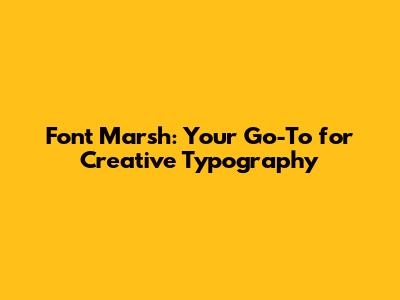
Hey guys, let's dive into the awesome world of Font Marsh! If you're anything like me, you know that the right font can totally make or break a design. It's not just about picking something that looks cool; it's about conveying the right emotion, the right message, and the right vibe. And that's where Font Marsh really shines. This platform is like a treasure trove for anyone looking to elevate their visual projects, whether you're a seasoned graphic designer, a blogger trying to make your site pop, or just someone who loves tinkering with text. We're talking about a huge collection of fonts that are not only diverse but also, crucially, high-quality. Forget those jagged, poorly made fonts that look terrible when scaled up. Font Marsh brings you clean, crisp, and professional typefaces that will make your work look polished and, dare I say, expert. So, stick around as we explore what makes Font Marsh such a fantastic resource and how you can leverage its extensive library to bring your creative visions to life. Get ready to discover some truly stunning fonts that will have your audience hooked from the first glance. It's all about making a statement, and with the right typography, you absolutely can.
Why Font Marsh is a Designer's Best Friend
So, why exactly should Font Marsh be on your radar, especially if you're knee-deep in the design world? Well, for starters, the sheer variety is mind-blowing. They've got everything from elegant serifs that scream sophistication to bold, playful sans-serifs perfect for grabbing attention. Need something grungy and distressed for an edgy poster? Check. How about a delicate script for a wedding invitation? Yep, they've got that too. This font library isn't just large; it's incredibly curated. What that means for you, my friends, is that you're not wading through a sea of mediocre fonts. Each one has been selected for its quality, usability, and aesthetic appeal. Think about the time you save not having to sift through hundreds of questionable options elsewhere. Font Marsh streamlines the process, offering you a reliable source of top-tier typefaces. Plus, they often have unique and creative fonts that you won't find just anywhere, giving your projects that distinctive edge. This is crucial in a crowded market where standing out is key. The best fonts often come with licensing information clearly laid out, and Font Marsh is good about that, helping you avoid any legal headaches down the line. Whether you're working on branding, web design, print materials, or social media graphics, having access to such a diverse and high-quality font collection is invaluable. It empowers you to experiment, to push creative boundaries, and to find that perfect typographic solution that resonates with your target audience. It’s about having the tools to execute your vision flawlessly, and Font Marsh provides just that. Seriously, guys, it’s a game-changer for your design workflow. The ease of browsing, the clear categorization, and the preview features all contribute to a smooth and enjoyable experience. It truly is a one-stop shop for all your typographic needs, making your design process more efficient and, dare I say, fun!
Exploring the Depths: What Kinds of Fonts Can You Find?
Let's get down to the nitty-gritty, shall we? What exactly can you expect to find when you start exploring the vast expanse of Font Marsh? Prepare to be amazed, because the diversity is truly something else. For all you lovers of classic elegance, they boast an impressive selection of serif fonts. These are the ones with those little decorative strokes, perfect for making your text feel traditional, authoritative, and incredibly readable in long-form content like books or articles. Think timeless beauty and a touch of old-world charm. On the flip side, if you're aiming for a modern, clean, and minimalist aesthetic, their sans-serif fonts are absolutely on point. These fonts lack the serifs, giving them a sleek and contemporary feel that works wonders for web design, app interfaces, and corporate branding. They convey clarity, efficiency, and a forward-thinking attitude. But Font Marsh doesn't stop there! For those projects that need a personal touch, a bit of flair, or a handwritten feel, their script fonts are a dream. From elegant, flowing calligraphy to more casual, brush-like styles, these can add a unique and intimate character to invitations, greeting cards, or even personal branding. Just imagine the impact a beautifully rendered script font can have! And let's not forget the more niche categories that really set Font Marsh apart. They have an extensive range of display fonts – these are the showstoppers, designed to grab attention in headlines, posters, and logos. You'll find everything from retro and vintage-inspired fonts to futuristic and abstract designs. Need something with a bit of a rough edge? Their distressed or grunge fonts are perfect for creating that edgy, urban, or post-apocalyptic vibe. Or perhaps you're after something quirky and fun for a children's book or a playful brand? They've got handwritten or decorative fonts that ooze personality. The font selection also spans various moods and themes, meaning you can find fonts specifically suited for holidays, specific industries, or even particular artistic movements. It’s like having a mood board for typography right at your fingertips. This incredible breadth ensures that no matter the project or the vision, you're highly likely to discover the perfect typographic match. Font Marsh truly understands that different projects call for different voices, and they’ve assembled a library that speaks every typographic language fluently. So go ahead, dive in, and let your creativity run wild – the perfect font is waiting for you!
Tips for Using Fonts Effectively from Font Marsh
Alright, you've browsed Font Marsh, and you're overwhelmed with all the amazing choices. Now what? How do you actually use these beautiful fonts effectively? Don't worry, guys, I've got some pointers to help you make the most of your font finds. First off, less is often more. While it's tempting to use every cool font you discover, try to stick to a limited palette for any given project. Generally, using two or three fonts – perhaps a headline font, a body text font, and maybe an accent font – is more than enough. This creates a cohesive and professional look. Font Marsh makes it easy to find complementary fonts, so explore their suggested pairings or choose fonts that belong to the same font family for guaranteed harmony. Another golden rule is readability. No matter how stylish a font is, if people can't read it, it's failed its primary purpose. Pay close attention to the legibility of your body text. Serif fonts are often excellent for long passages of text in print, while clean sans-serifs tend to perform better on screens. Always test your chosen fonts at different sizes to ensure they remain clear and legible. When you're choosing fonts from Font Marsh, think about the mood you want to convey. A playful script font isn't going to work for a serious legal document, and a rigid, corporate sans-serif might feel out of place on a whimsical children's party invitation. Match the font's personality to your project's message and audience. Don't be afraid to experiment with pairing contrasting fonts – a bold sans-serif headline with a delicate serif body text can create a dynamic and engaging visual hierarchy. Font Marsh offers so many options that allow for this kind of creative play. Also, consider the context. Where will this design be seen? A font that looks great as a huge headline on a poster might become illegible at a tiny size in a social media post. Always preview your fonts in the intended context and size. Finally, remember to check the licensing. Font Marsh usually provides clear licensing information, which is super important, especially if you're using the fonts for commercial projects. Understanding the terms of use ensures you're compliant and can use the fonts with confidence. By following these simple guidelines, you can transform those gorgeous fonts from Font Marsh into truly impactful designs that communicate your message clearly and stylishly. Happy designing, everyone!
Integrating Font Marsh into Your Workflow
Okay, so you've seen the potential, you've browsed the amazing selection, and now you're wondering, "How do I make Font Marsh a regular part of my creative process?" It's actually simpler than you might think, guys! The first step is to bookmark Font Marsh right now. Seriously, do it. Make it one of your go-to sites for design inspiration and resources. When you start a new project, instead of defaulting to the same old fonts you always use, make it a habit to check Font Marsh first. Browse their categories, use their search filters, or even explore their trending or new releases. You might discover a font that perfectly captures the essence of your project in a way you hadn't even considered. Font Marsh is fantastic for when you need something specific. Let's say you're designing a vintage-themed website; you can search for